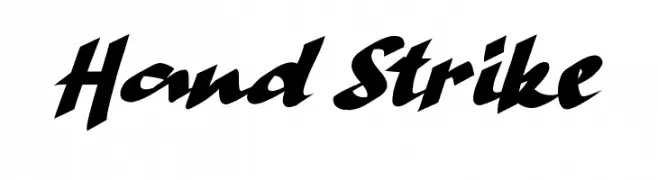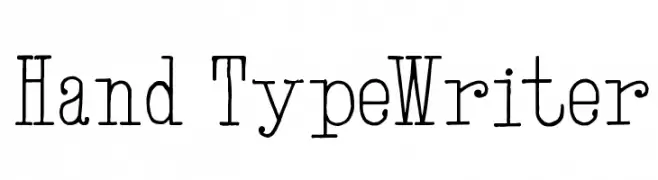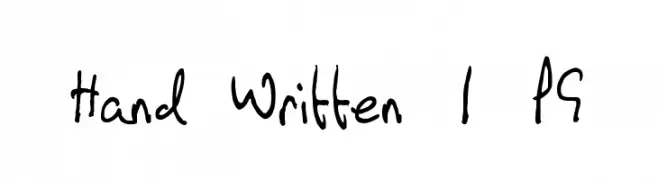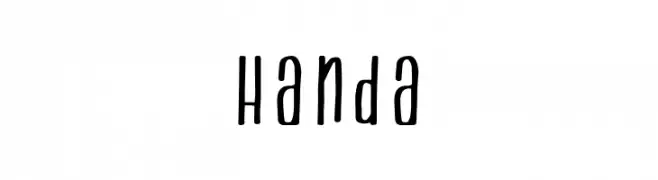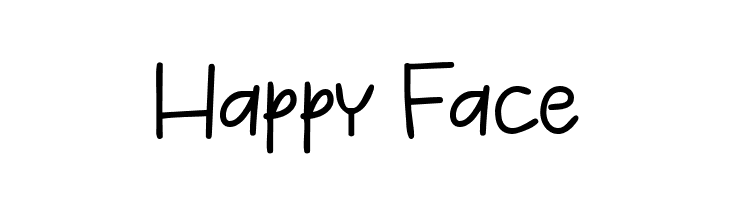
A bold, dynamic script font with sharp, angular strokes.
A vintage, typewriter-style font with a hand-drawn, nostalgic feel.
A casual, hand-drawn font with playful, irregular strokes.
A casual, handwritten font with a natural, flowing style.
A playful, hand-drawn font with tall, narrow letters and a casual style.